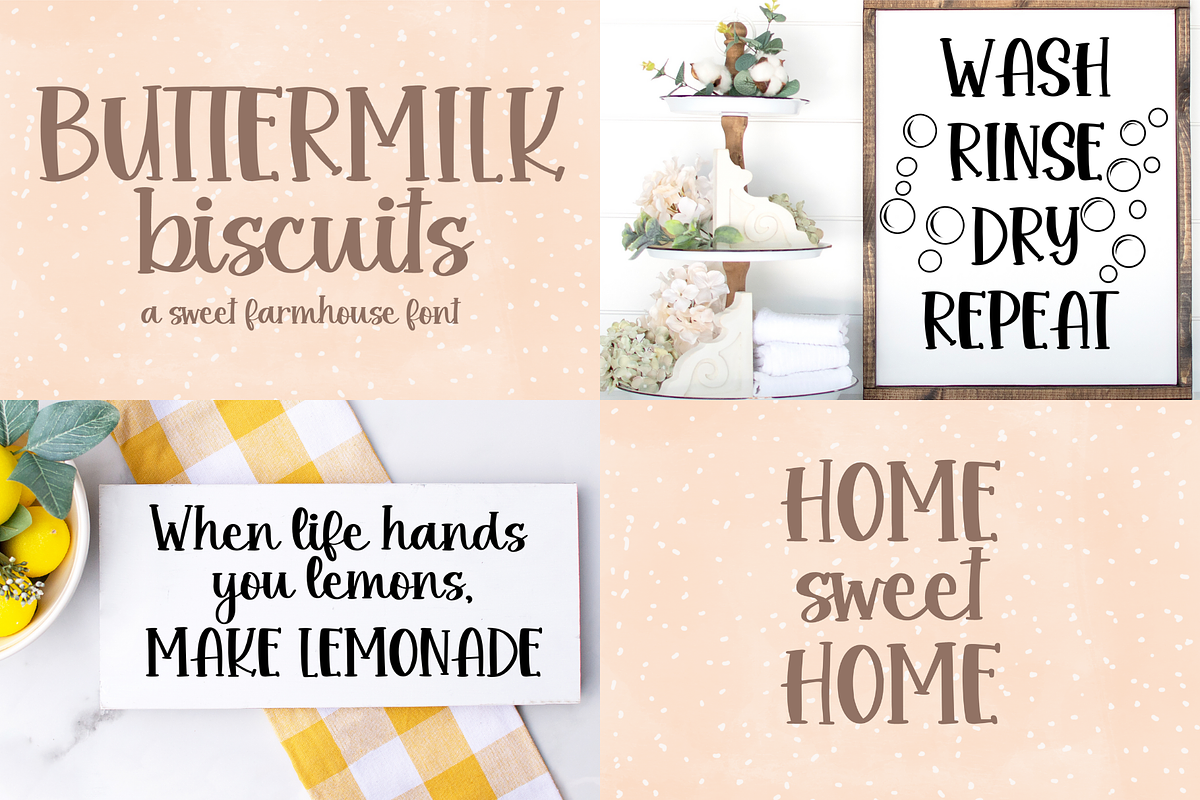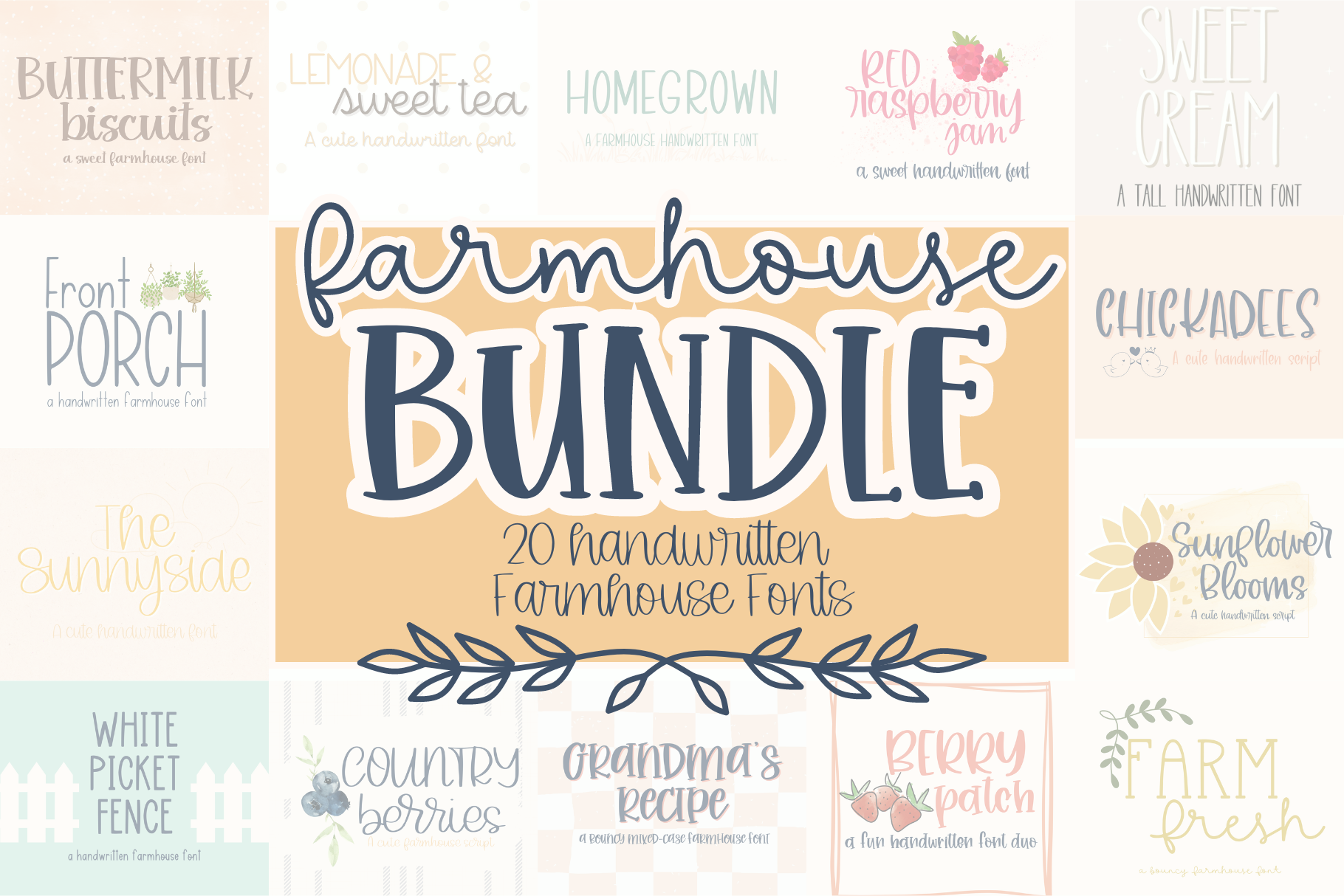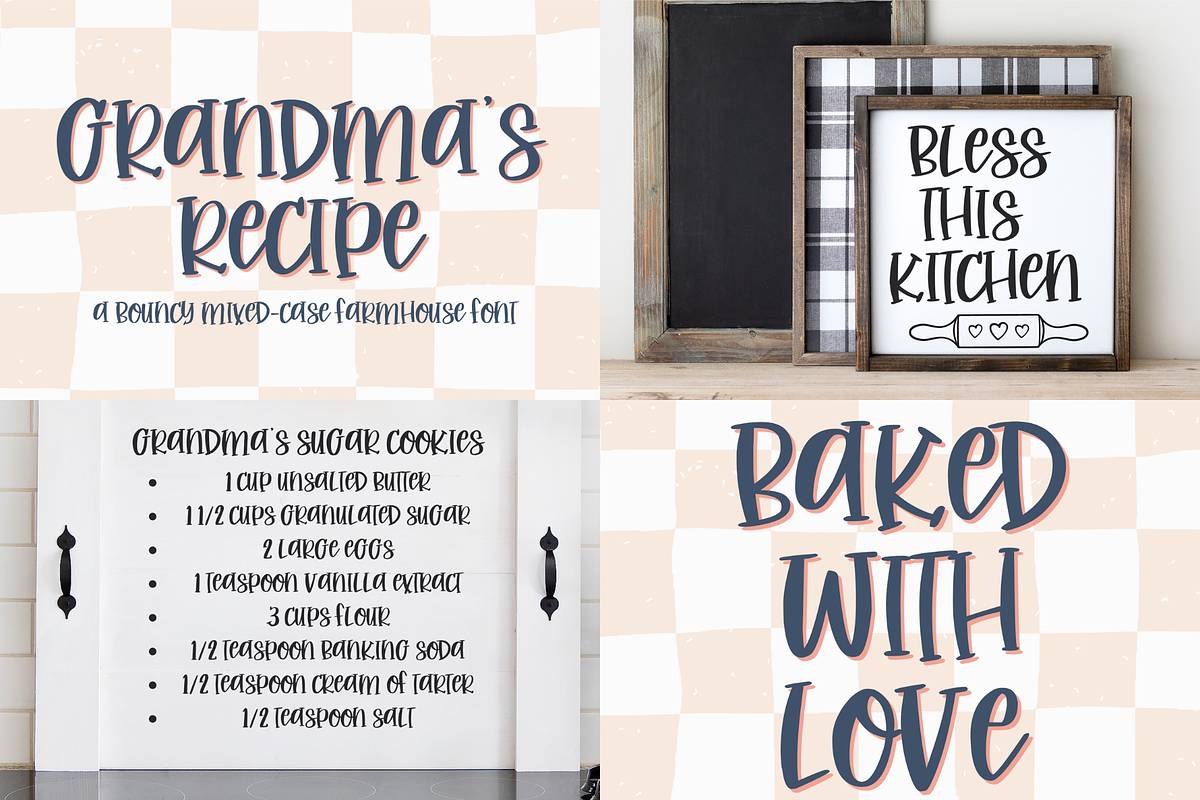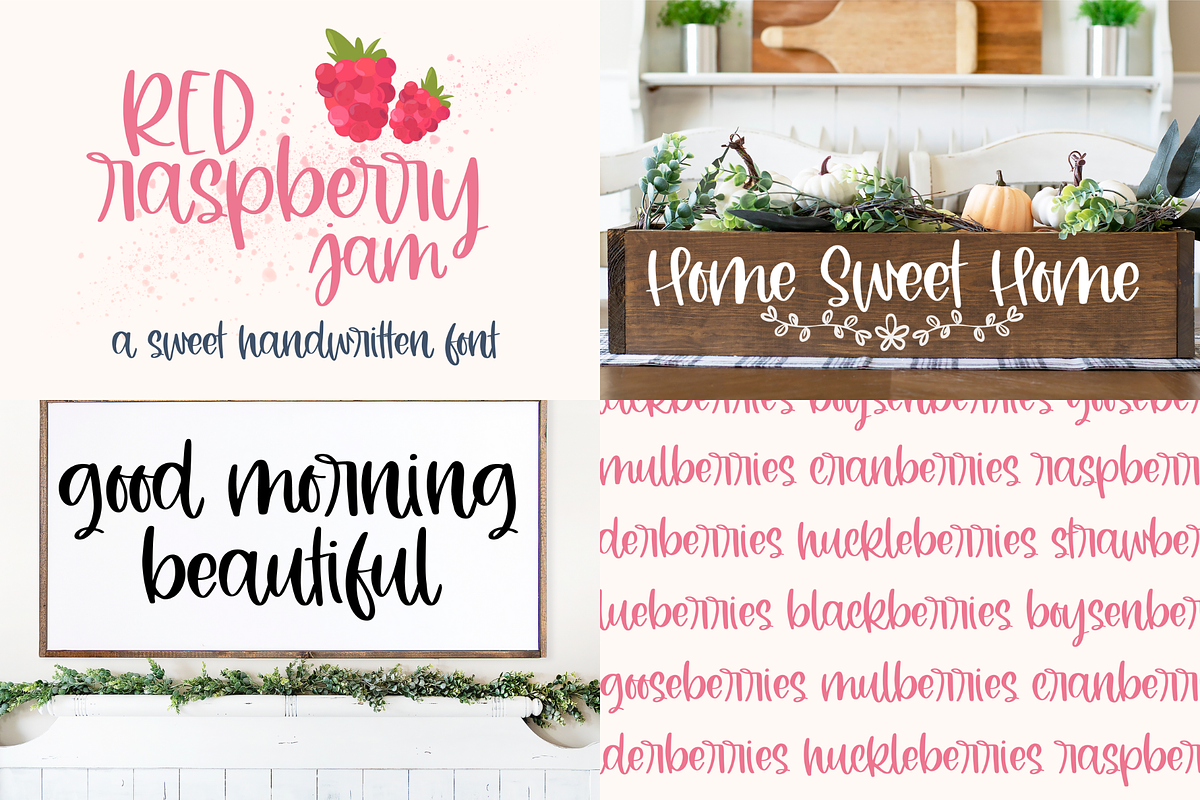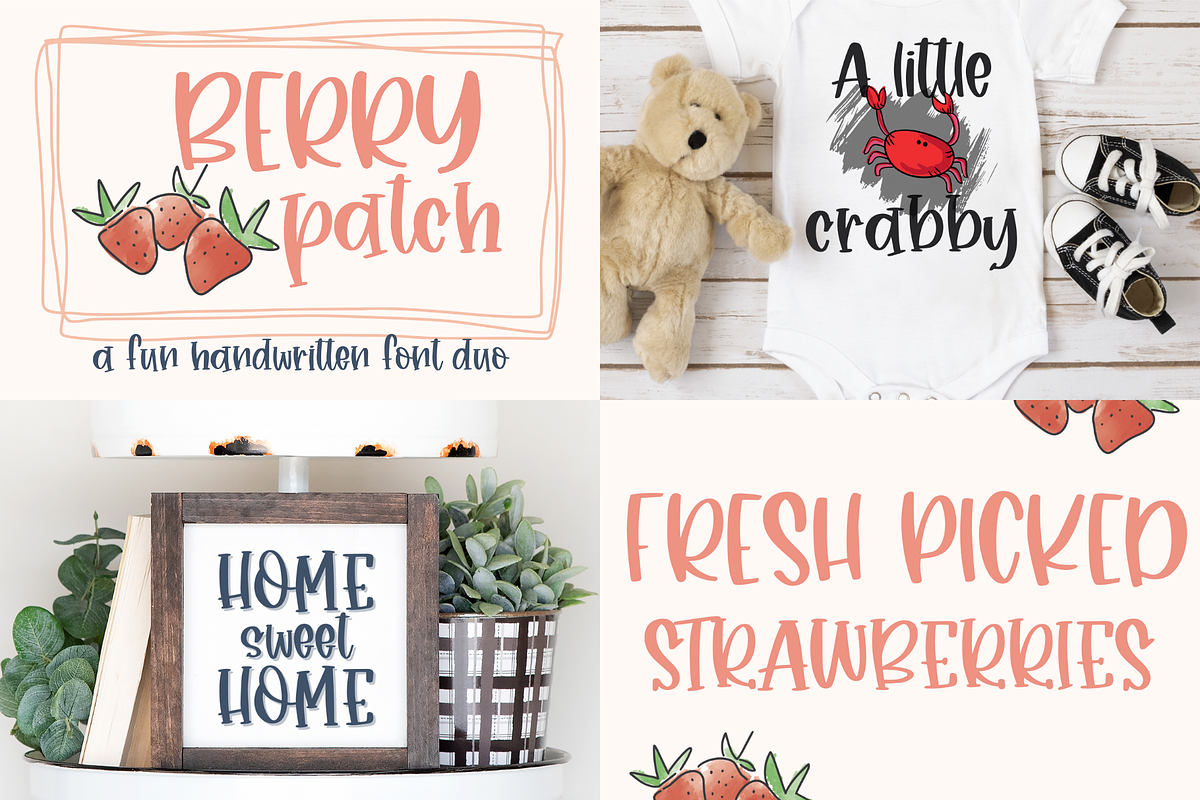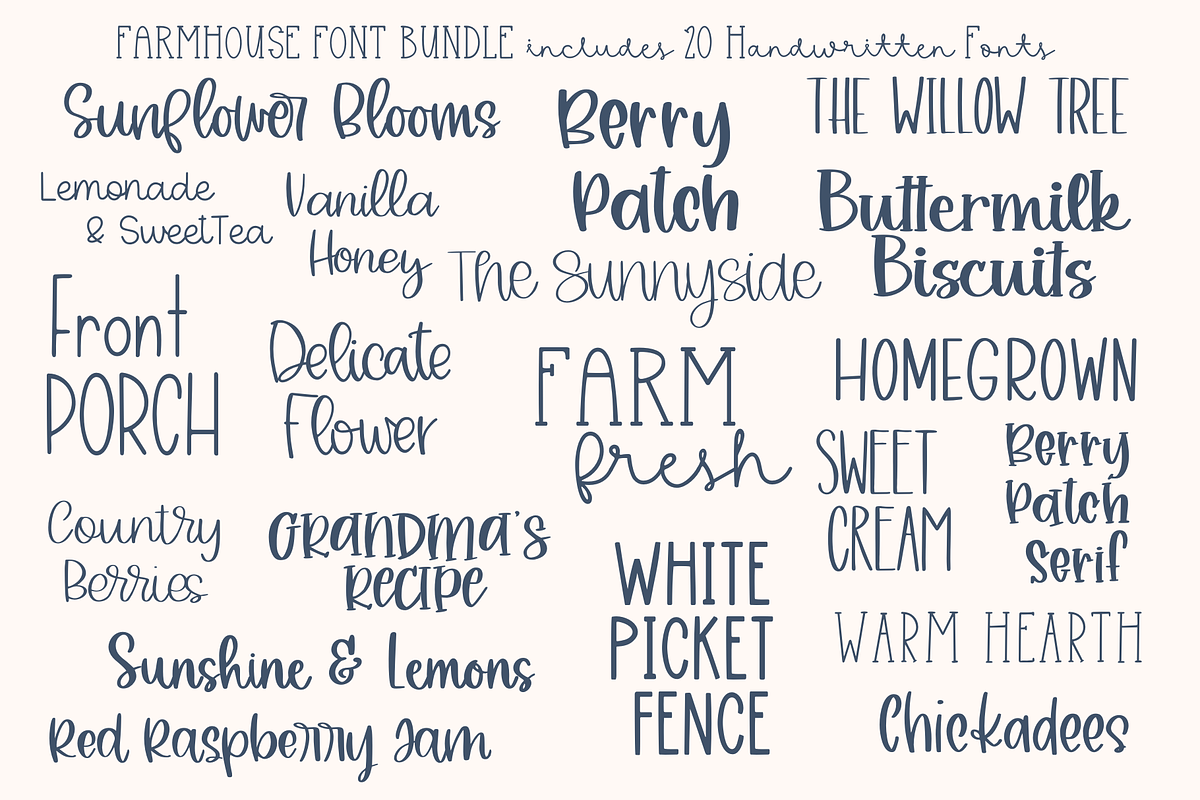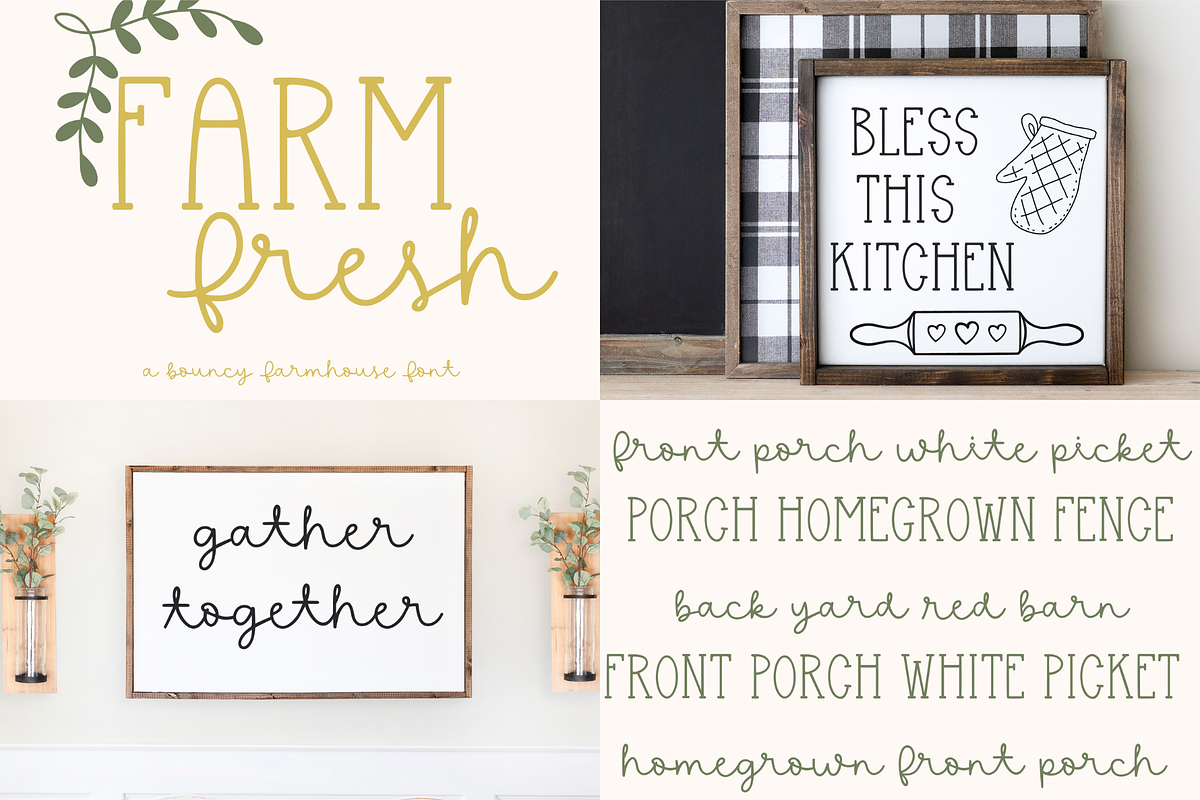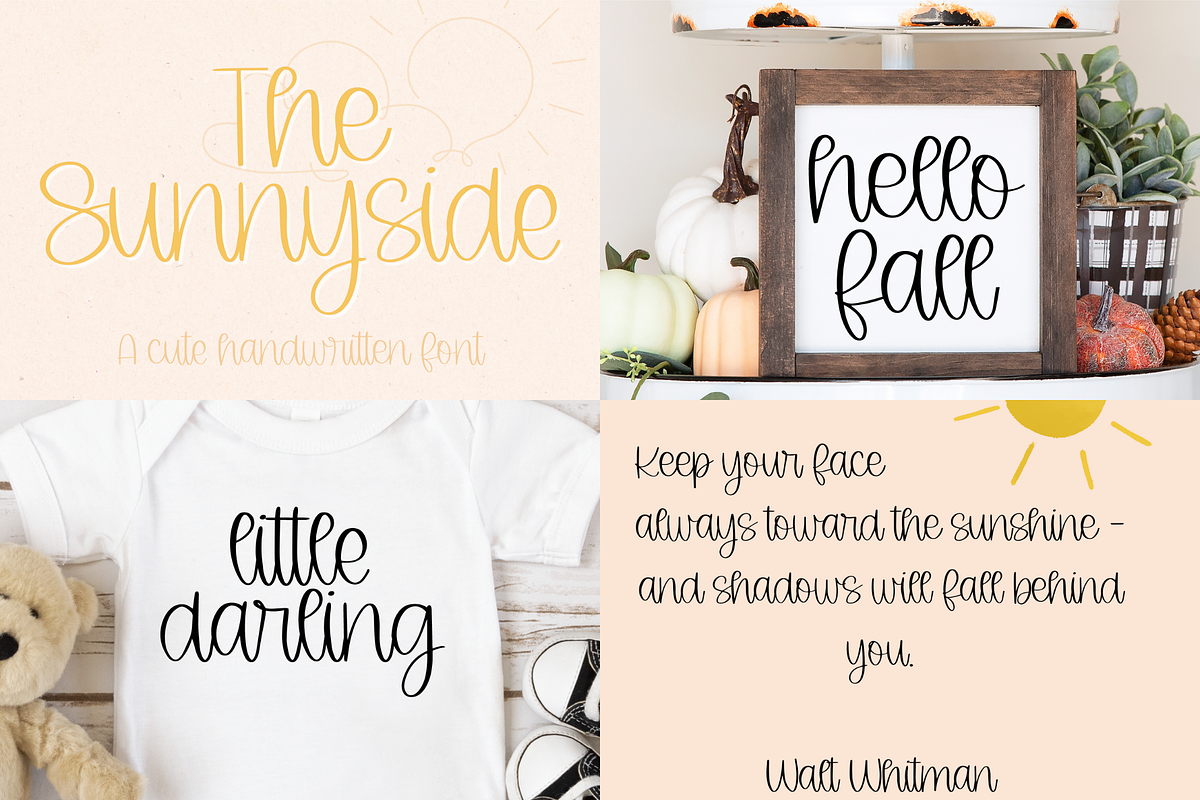
Farmhouse Handwritten Font Bundle
Introducing our irresistible Farmhouse Handwritten Font Bundle, a delightful collection of 20 handwritten fonts that is a must-have for all font enthusiasts! This comprehensive bundle includes an array of stunning cursive and fun farmhouse fonts, specifically designed for various creative projects. Whether you're crafting personalized items or designing digital artwork, our font bundle offers the perfect blend of style and versatility. Our fonts are compatible with Cricut SVGs, Goodnotes, Procreate, and many other programs. Elevate your creative endeavors today with our exceptional Farmhouse Handwritten Font Bundle and unlock endless possibilities for your projects!
Fonts included are: ___ Buttermilk Biscuits Berry Patch Serif Chickadees Country Berries Delicate Flower Farm Fresh Front Porch Grandma's Recipe Homegrown Lemonade & Sweet Tea Red Raspberry Jam Sunflower Blooms Sunshine & Lemons Sweet Cream The Sunnyside The Willow Tree Vanilla Honey Warm Hearth White Picket Fence